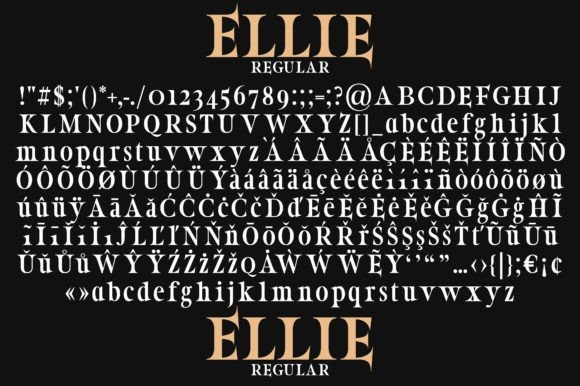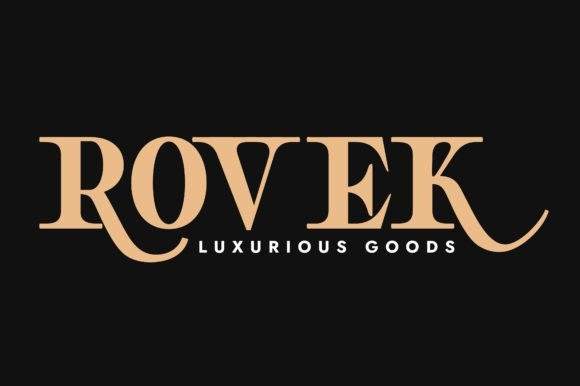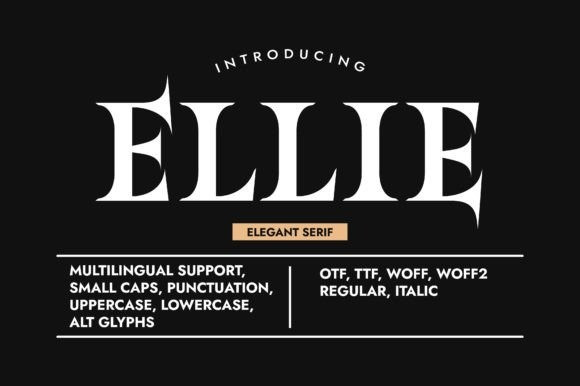
Ellie Font
Ellie Font is a trendy, elegant, and stylish serif typeface. It suits numerous contexts and design themes such as packaging design, posters, cosmetics, social posts, logos, etc. Use it confidently in your creation because it will certainly add a luxury touch to any design you are working on!